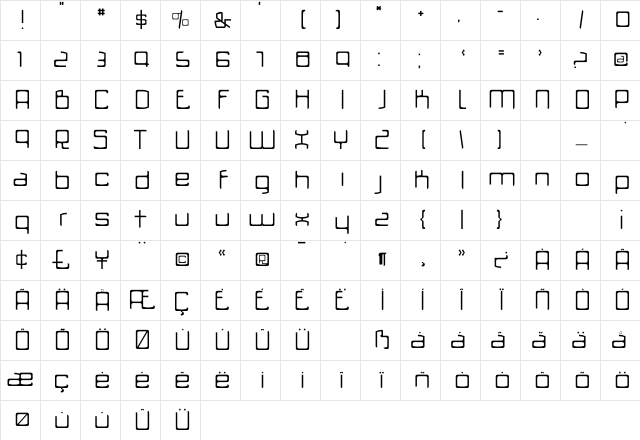
Utensil Regular
Design Context for Utensil
Utensil is a composed and adaptable typeface that performs quietly and consistently across a wide range of design contexts.